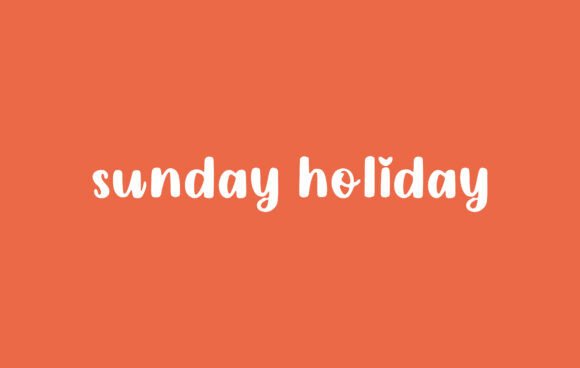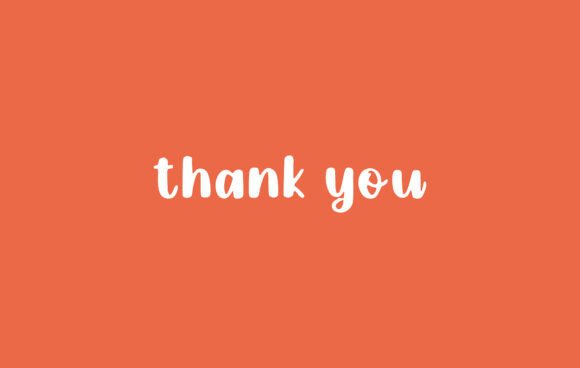
Introduction to Sloan Font
Remember that moment when you’re brainstorming ideas for a creative project, and you finally stumble upon the perfect font that makes everything click? For designers, finding the right font can be the difference between a good design and a great one. And when it comes to creating something truly special, the Sloan Font is an authentic handwritten font that’s sure to capture hearts.
With its romantic touch and high-quality design, the Sloan Font is an invaluable resource for designers looking to elevate their creative work. Whether you’re working on a magazine headline, social media campaign, or wedding invitation, this font is sure to impress. And the best part? It’s not only beautiful, but also incredibly versatile, making it perfect for a wide range of design projects.
From free download to commercial use, the Sloan Font is a must-have design resource for any creative professional. Its transparent background and elegant script make it perfect for a variety of applications, from branding and cards to social media and more.
Sloan Font
- High-quality, elegant script font designed for creative projects, perfect for wedding invitations, quotes, and other artistic endeavors.
- Includes 6 styles: Regular, Italic, Bold, Bold Italic, Swash, and Swash Italic, providing a range of options for your design.
- Unique characteristics include beautiful, flowing connections and subtle flair, adding a touch of sophistication to any design.
Honest Review: Sloan Font
I recently stumbled upon the Sloan Font, and I’m excited to share my thoughts on this design resource. As a designer, I’m always on the lookout for high-quality fonts to elevate my creative projects.
What works well with Sloan Font is its versatility. The font comes in various styles, making it suitable for a wide range of design projects. I appreciate that it’s available as a free download, which is a huge plus for designers on a budget.
One of the standout features of Sloan Font is its transparent background. This makes it easy to use in various design scenarios, from digital to print projects.
⚠️ One limitation of Sloan Font is that it may not be suitable for very formal or traditional designs. The font’s style is more modern and playful, which may not appeal to all designers.
Overall, I’m impressed with Sloan Font, and I think it’s a great addition to any designer’s toolkit. It’s a fantastic resource for creative projects, and its free download makes it a must-have for designers on a budget. ✨